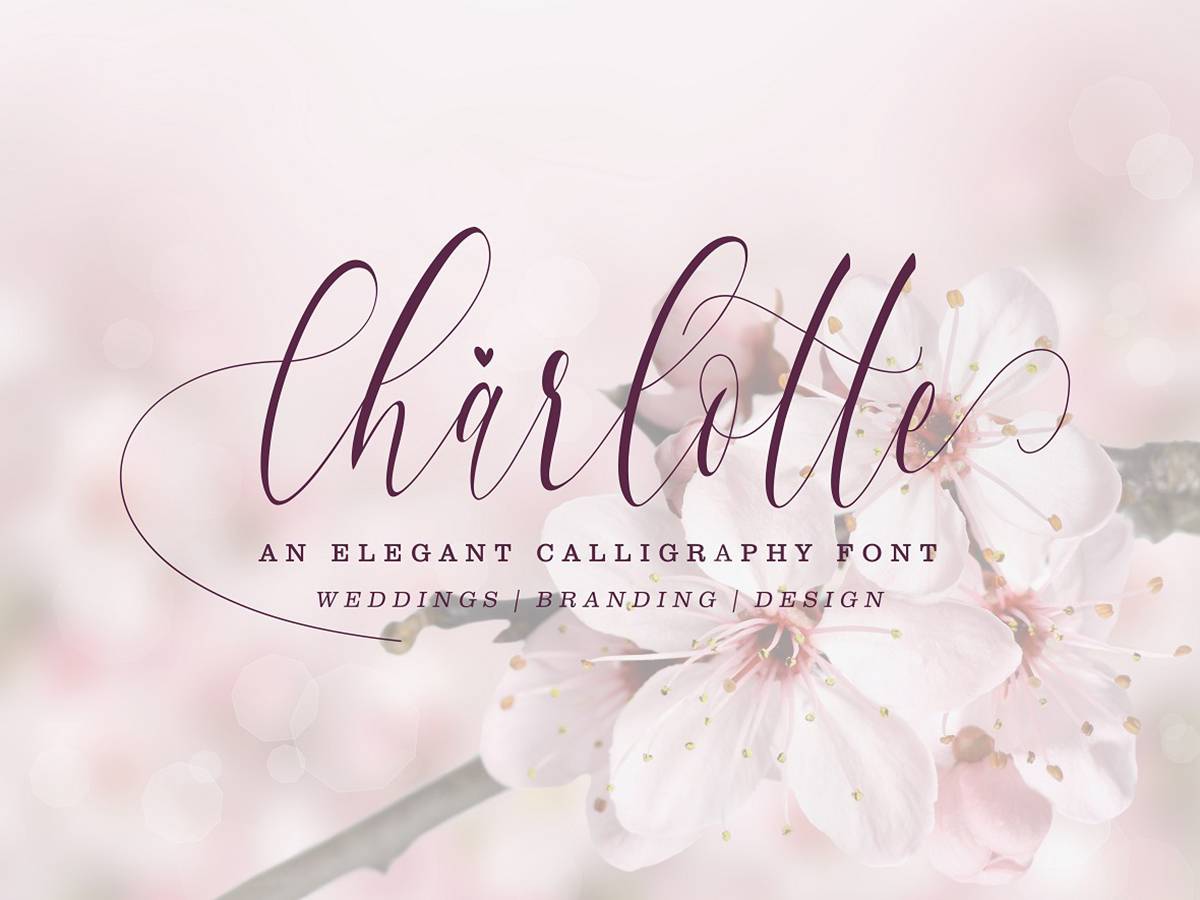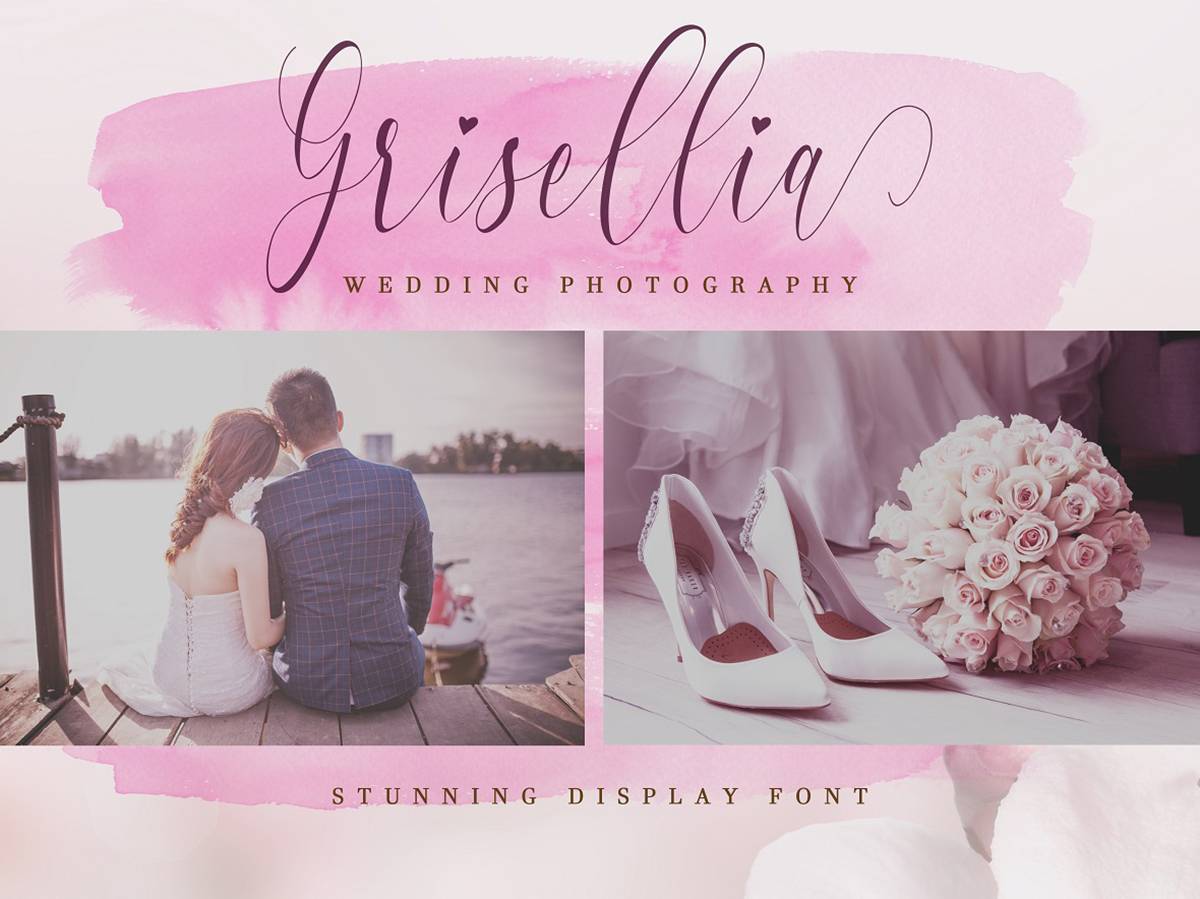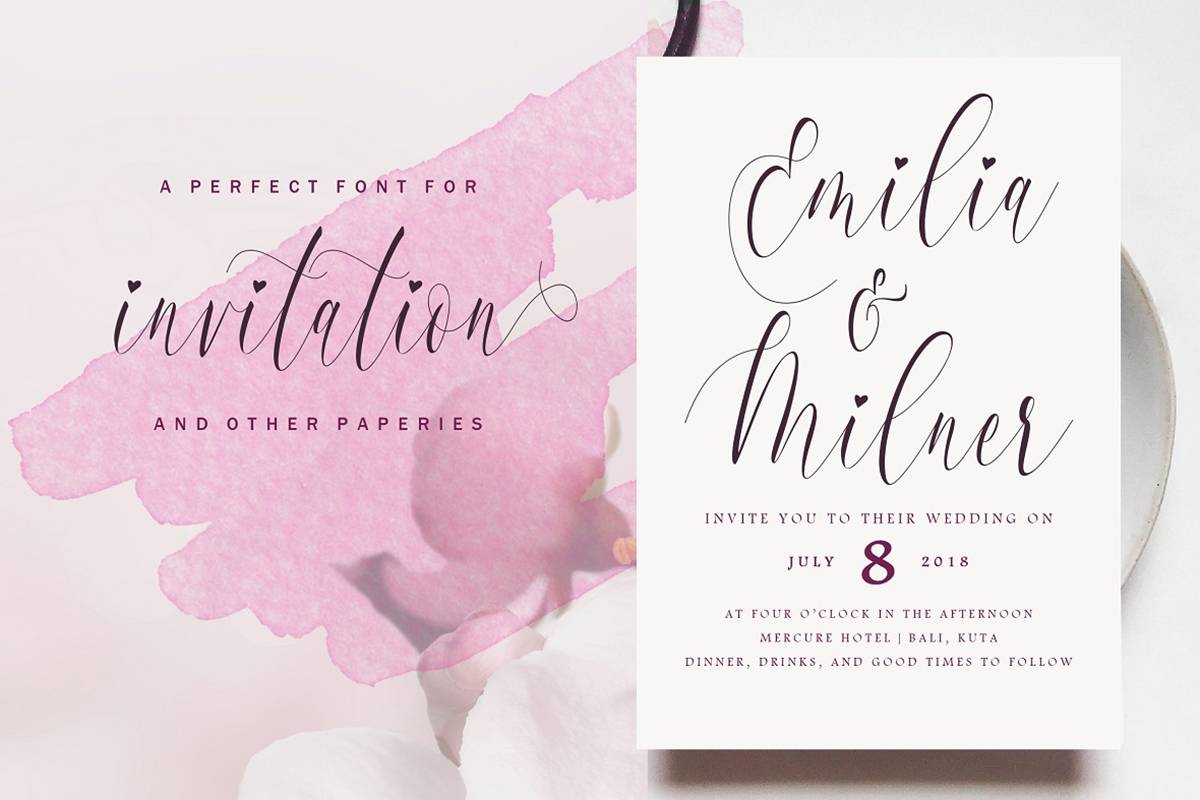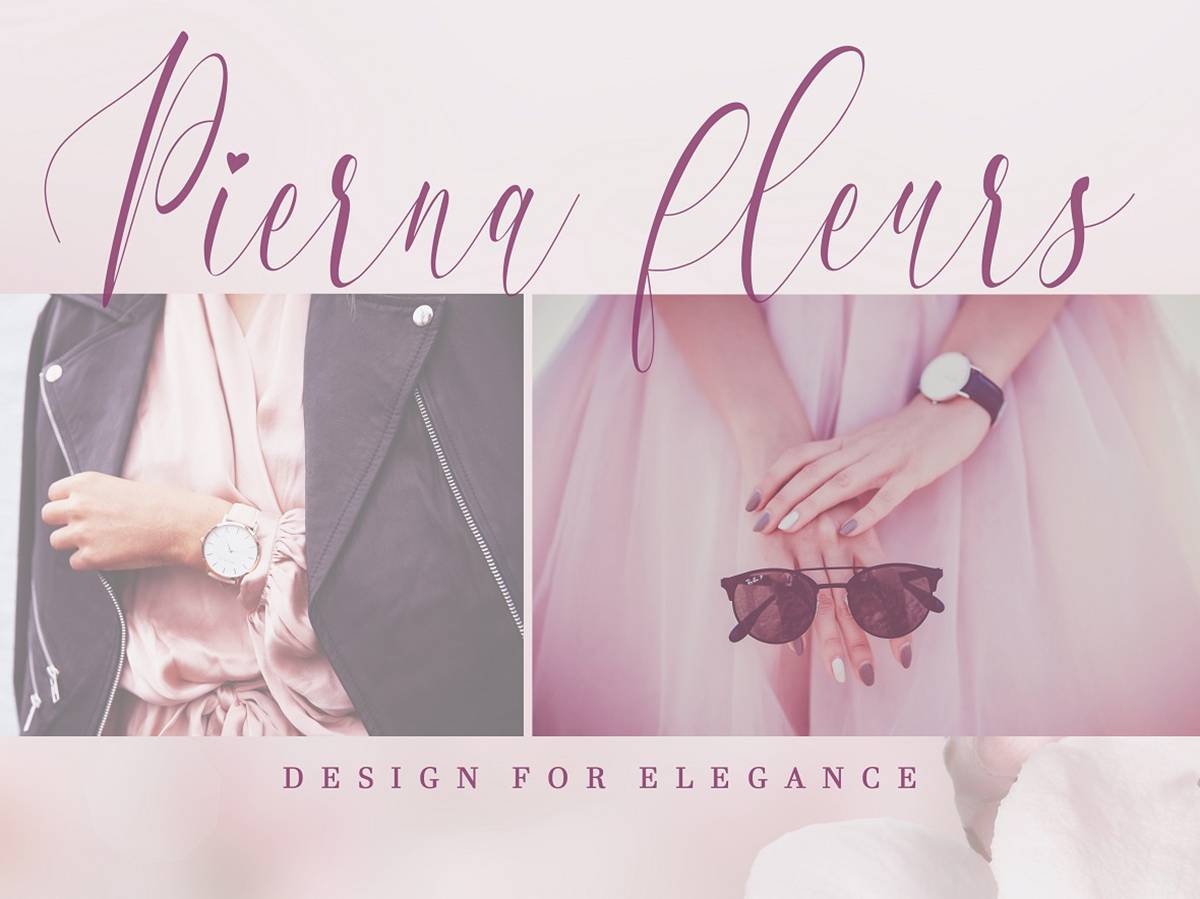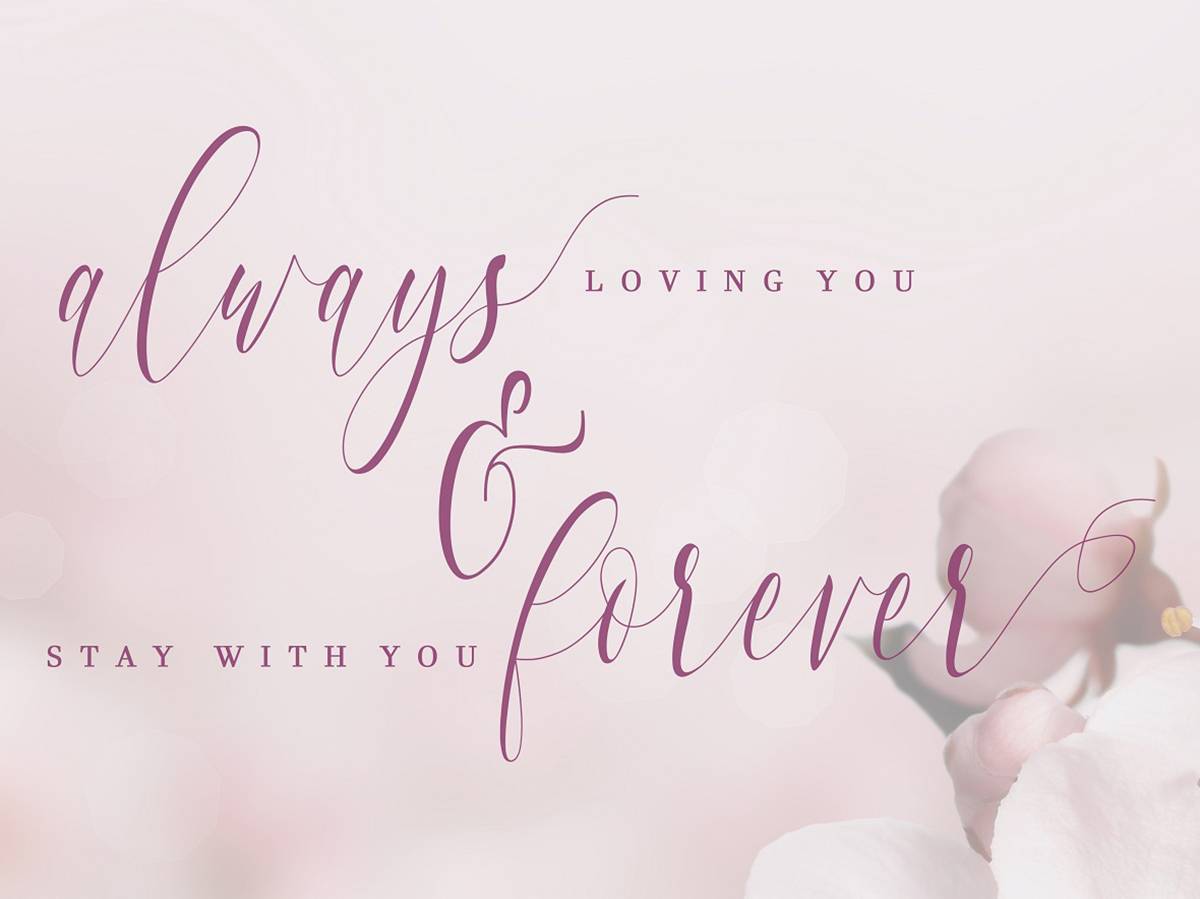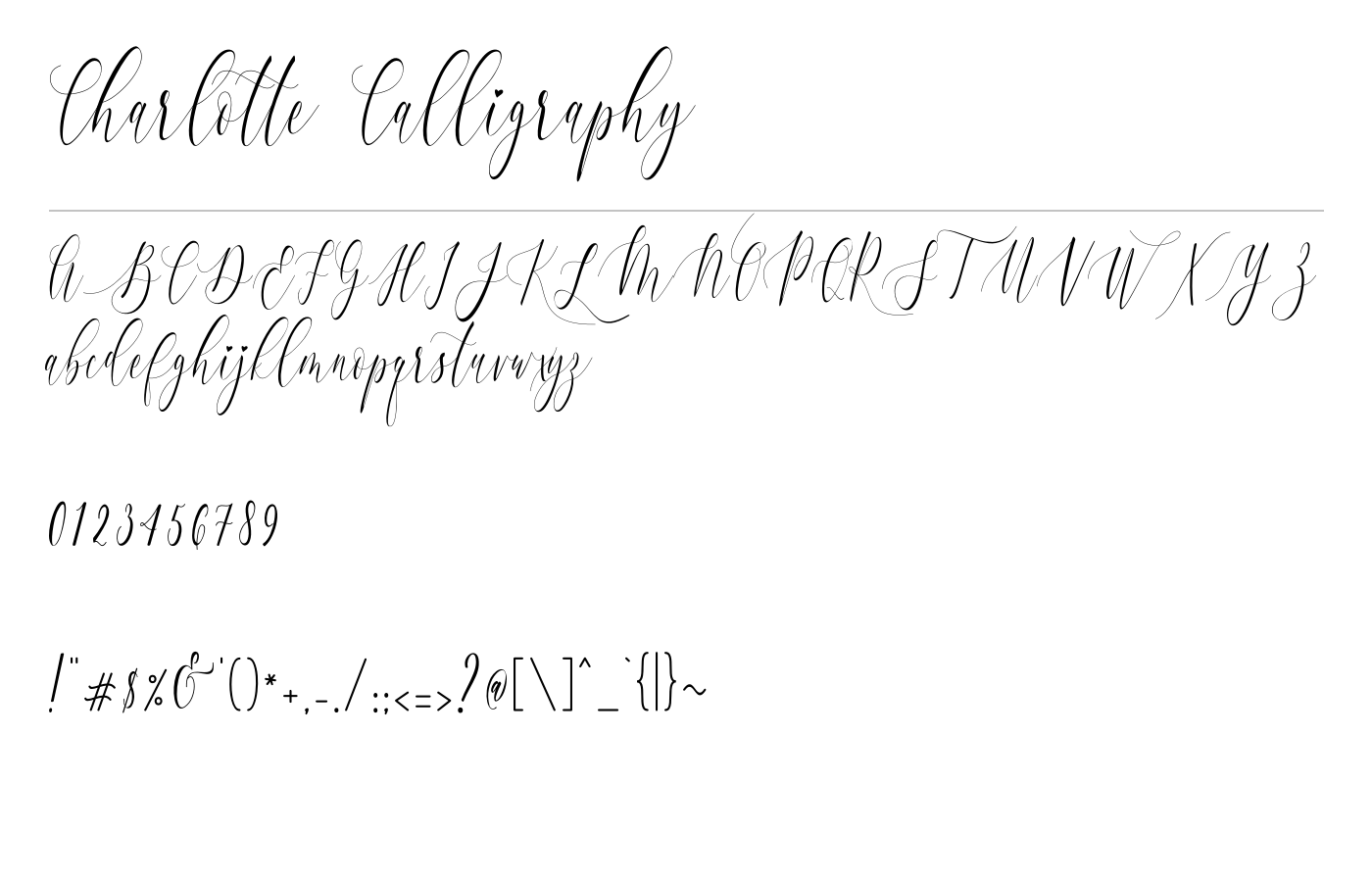
Charlotte Font is an elegant and delicate script font with graceful, flowing lines that mimic sophisticated calligraphy. Its thin strokes and refined curves make it perfect for luxury branding, wedding invitations, and stylish editorial use where a feminine and artistic touch is desired. This font works best in large sizes for headlines or decorative text to highlight its intricate, hand-crafted feel.
Charlotte Font
About Charlotte Font
| Font family | Charlotte Font |
| Designer | Aldedesign 2018 |